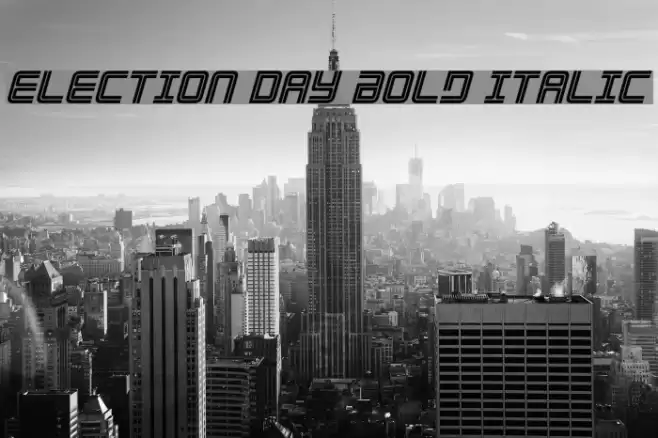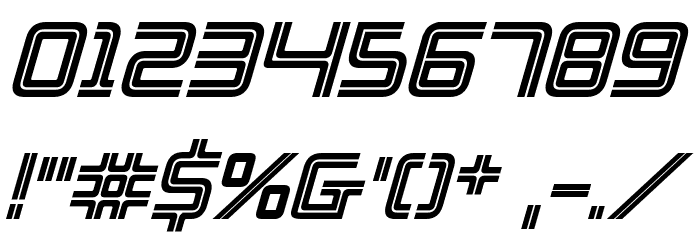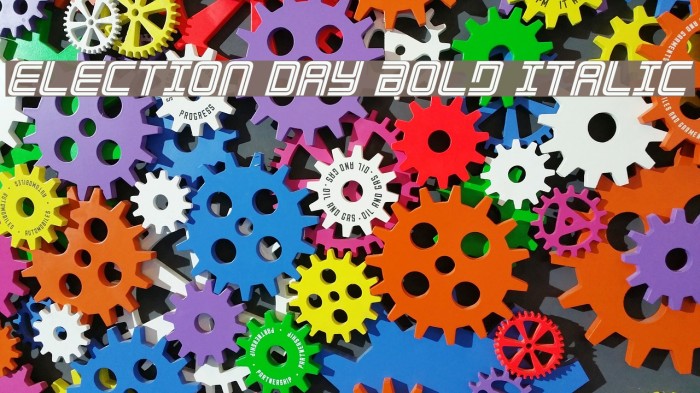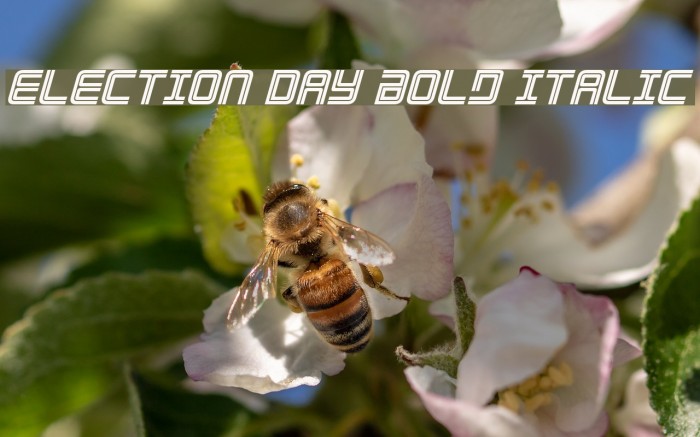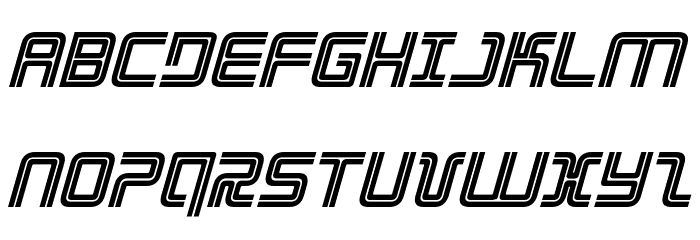
Election Day Bold Italic Font
Election Day Bold Italic Description
This font features a bold and italicized style with a distinct futuristic and dynamic appearance. The characters are outlined with a double-line effect, creating a sense of depth and movement. The angular and geometric shapes of the letters give it a modern and edgy feel, making it stand out in any design. The uppercase and lowercase letters maintain a consistent style, with the uppercase being slightly more pronounced. Numbers and special characters are designed to match the overall aesthetic, ensuring uniformity across all elements. The font's unique style is ideal for projects that require a bold statement.
A bold, italicized font with a futuristic, double-line design from Sci-fi fonts.
- Proposed Projects: Ideal for branding, posters, sports events, and technology-themed designs.